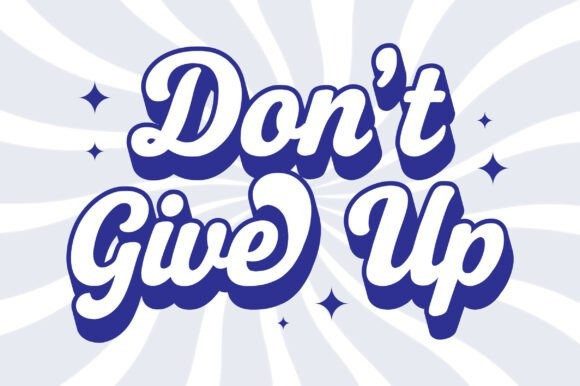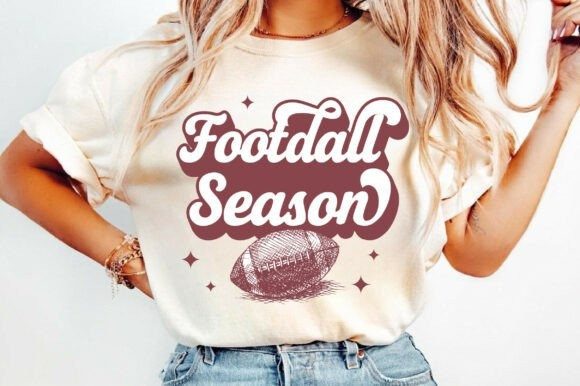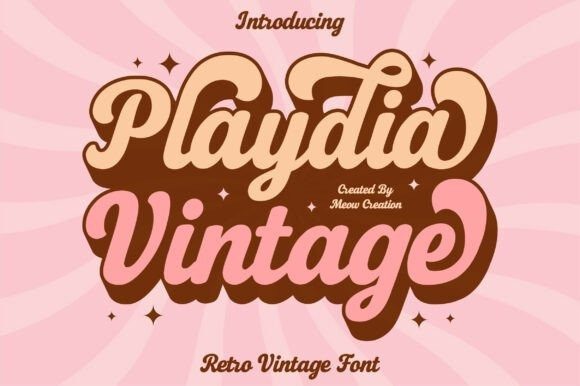
Playdia Vintage Font is a bold and playful retro script font that brings a touch of nostalgic charm to any design. Inspired by 70’s groovy lettering, this font features smooth curves, thick lines, and a creamy layered style that instantly adds warmth and personality.
Perfect for logos, t-shirt, posters, packaging, apparel, invitations, and social media designs, Playdia Vintage blends vintage elegance with modern fun. Its bold yet friendly look makes every word stand out beautifully.
Add a cheerful retro touch to your next project with Playdia Vintage — where groovy vibes meet timeless style!